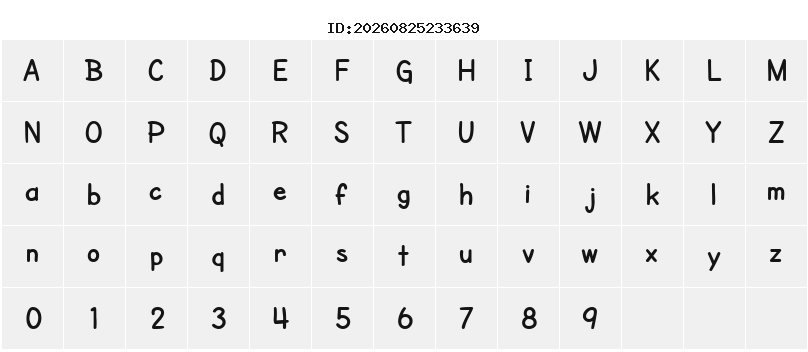
SF Cartoonist Hand Preview
• Font Name: SF Cartoonist Hand
• Designer: ShyFonts Type Foundry
About SF Cartoonist Hand.ttf
SF Cartoonist Hand.ttf is a modern, elegant sans-serif font designed for ultimate readability and visual harmony. Perfect for branding, headlines, web design, and print materials.